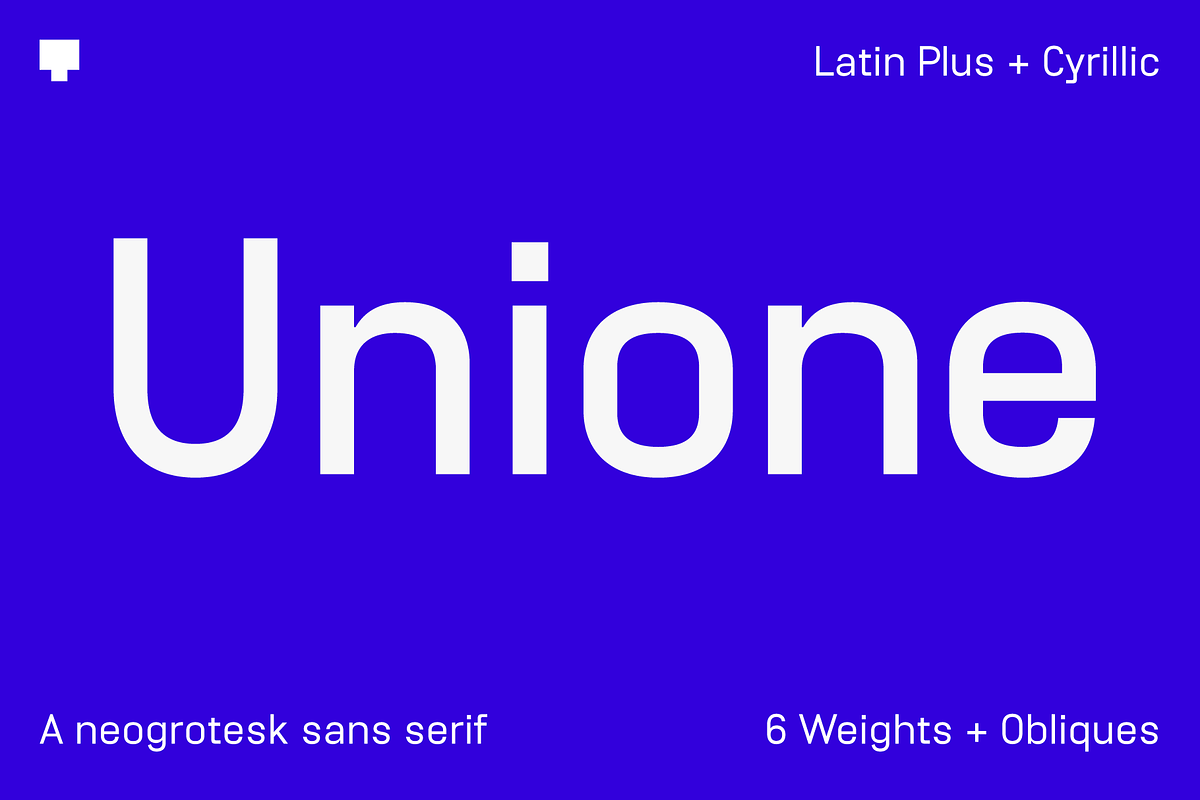
Unione Font Free Download is a modern, versatile sans-serif typeface with a clean, geometric design. It offers a balanced, sleek look that makes it ideal for a wide range of applications, from branding and editorial work to website design, corporate materials, and user interfaces.
The font’s sharp lines and subtle curves provide a contemporary feel, making it suitable for both professional and creative projects. Whether you’re creating logos, headlines, or body text, Unione’s timeless design ensures excellent legibility and a polished, minimalist aesthetic.